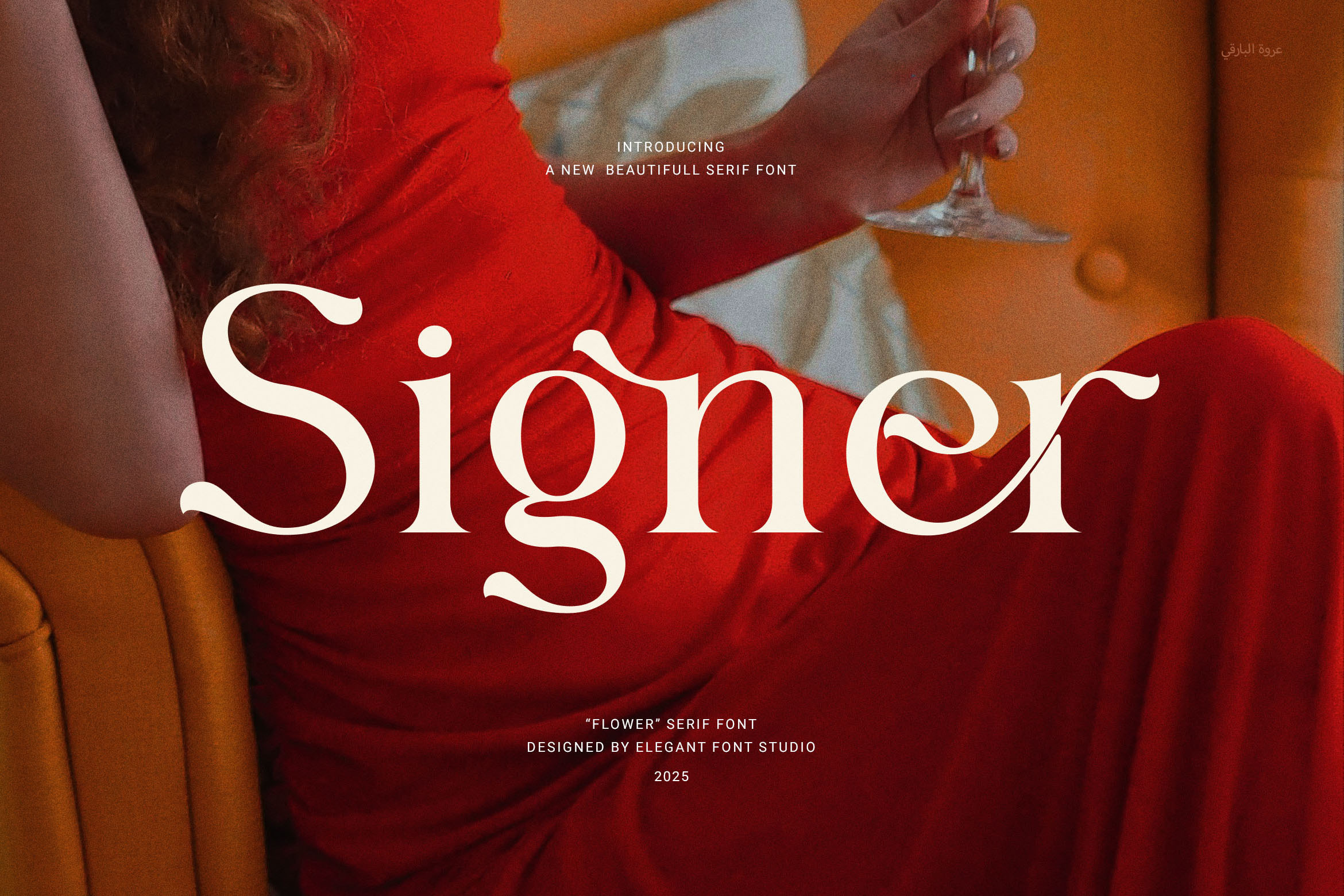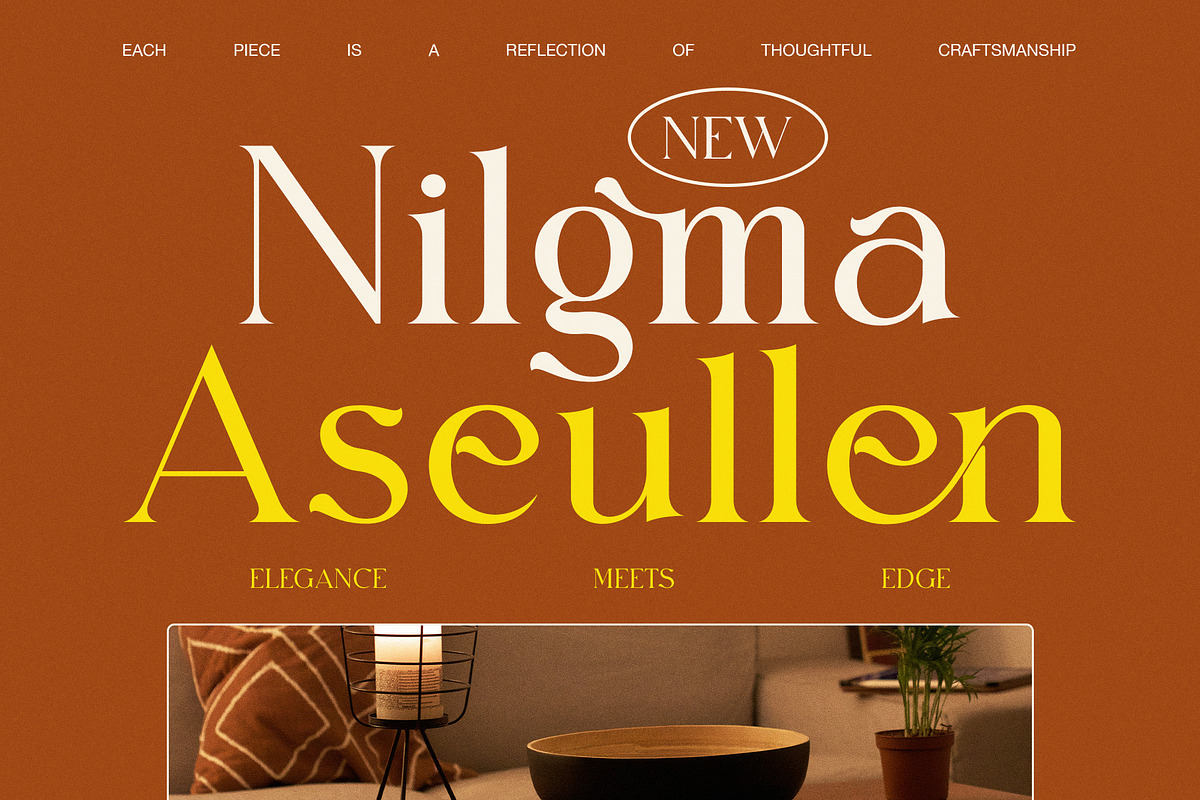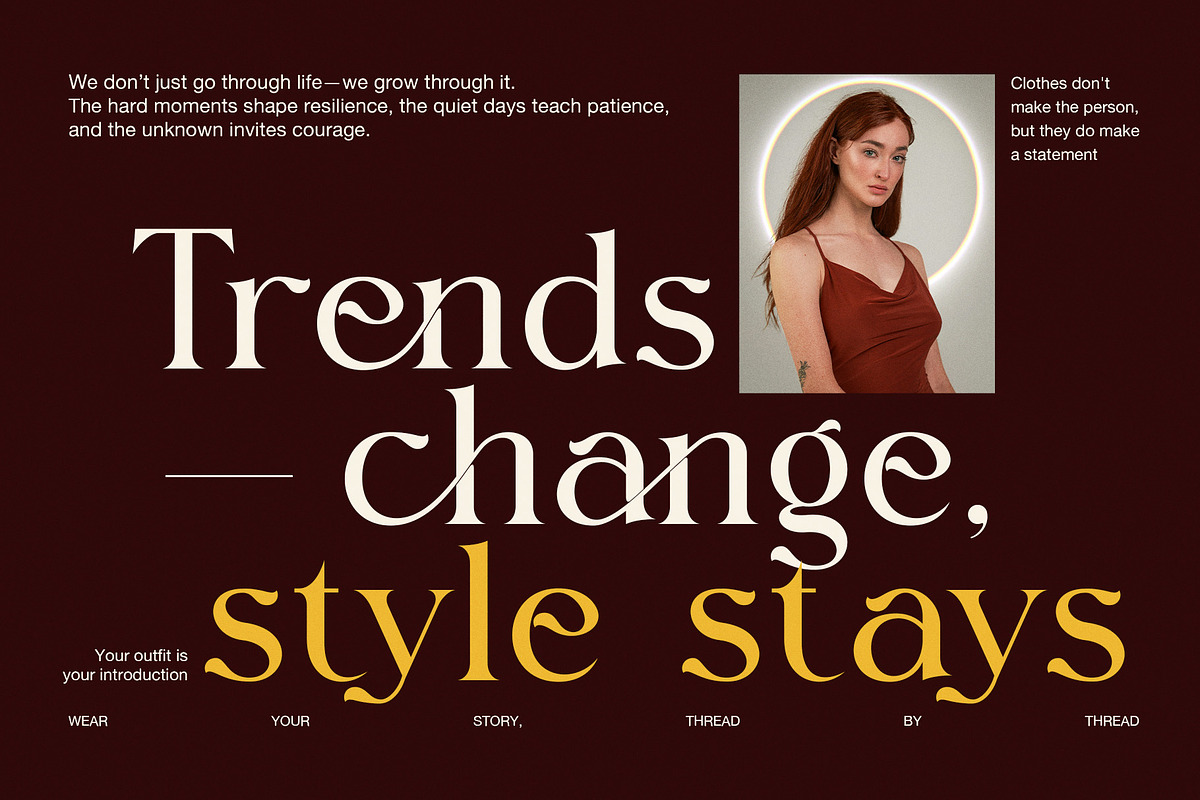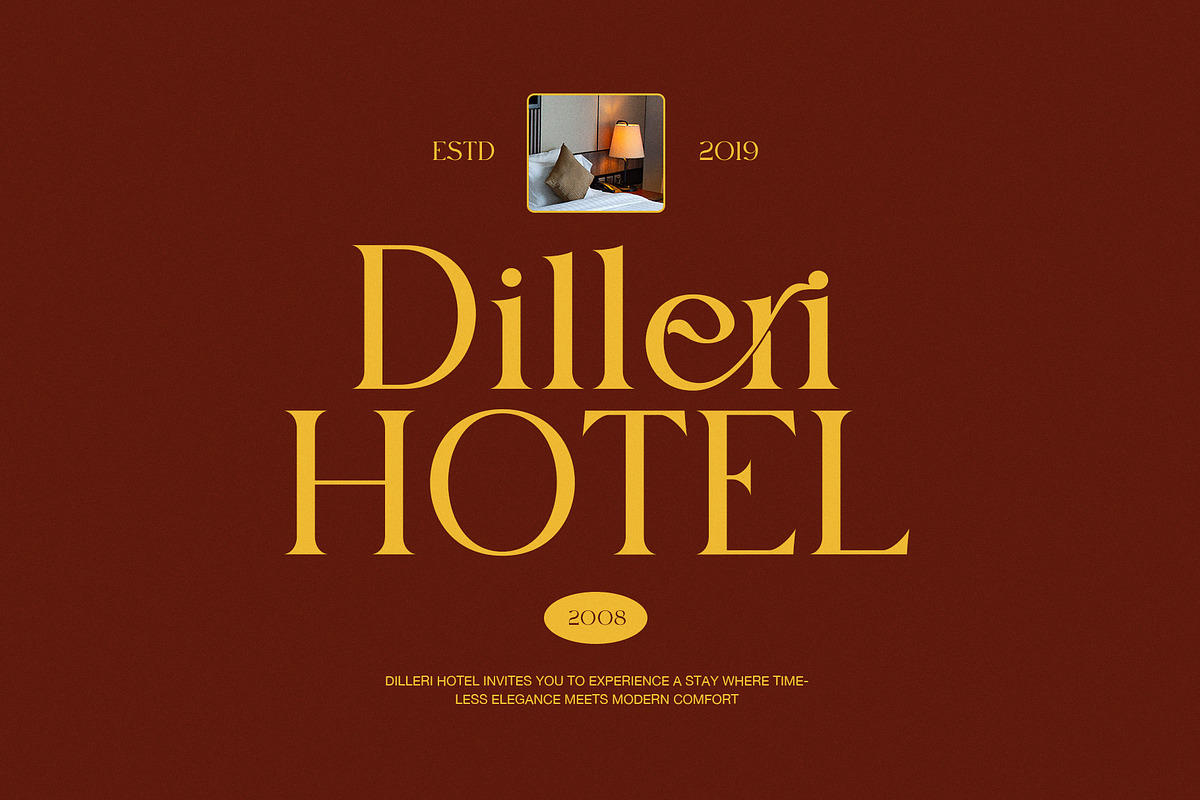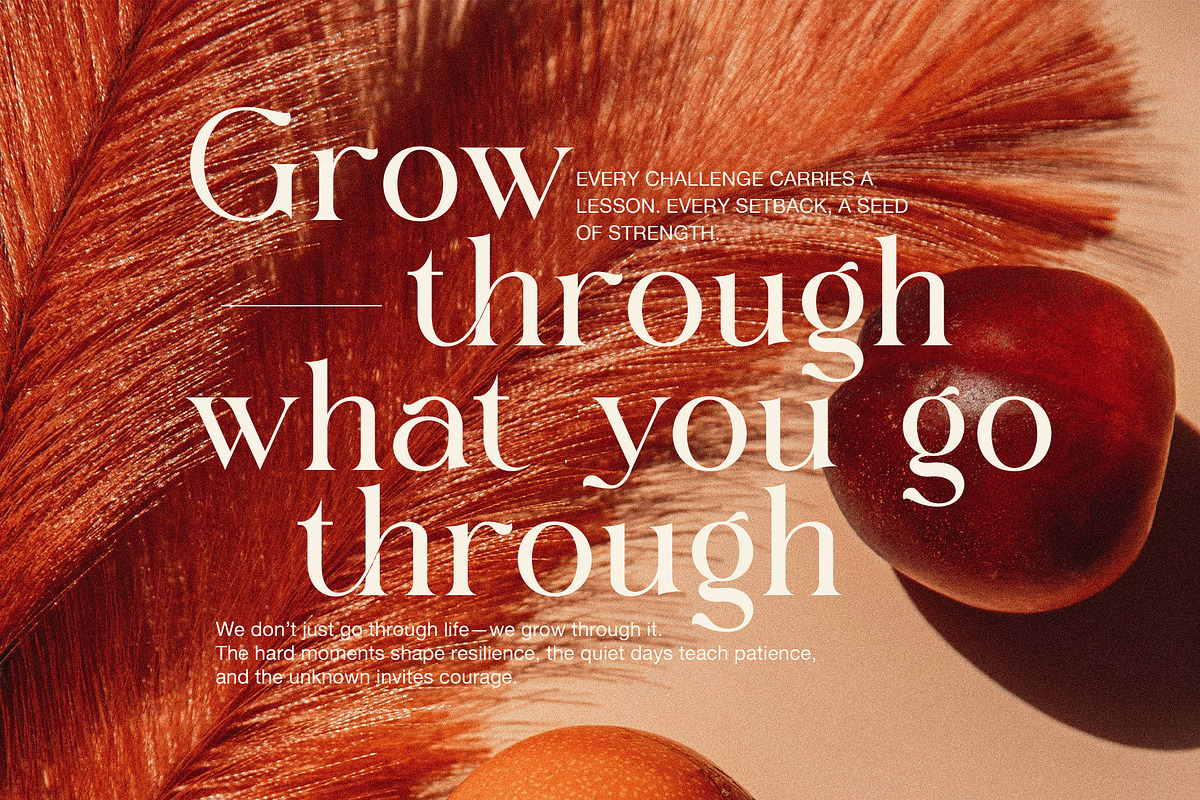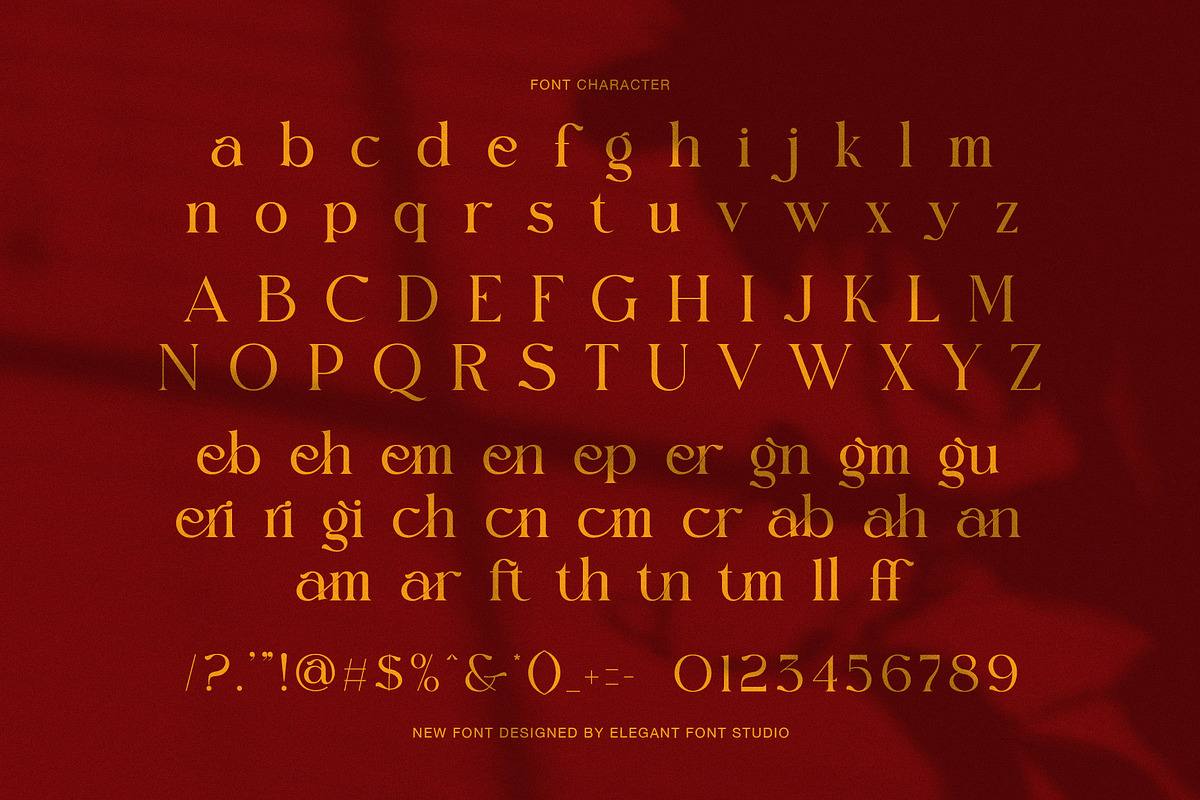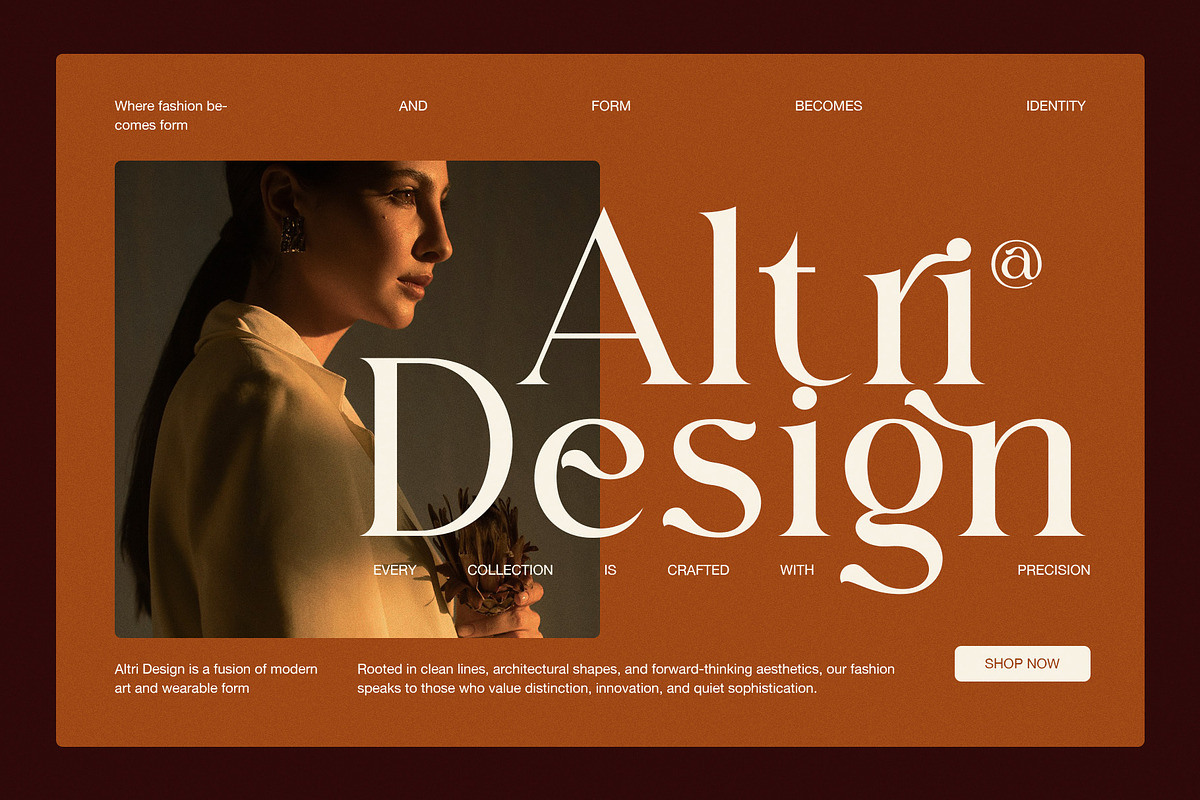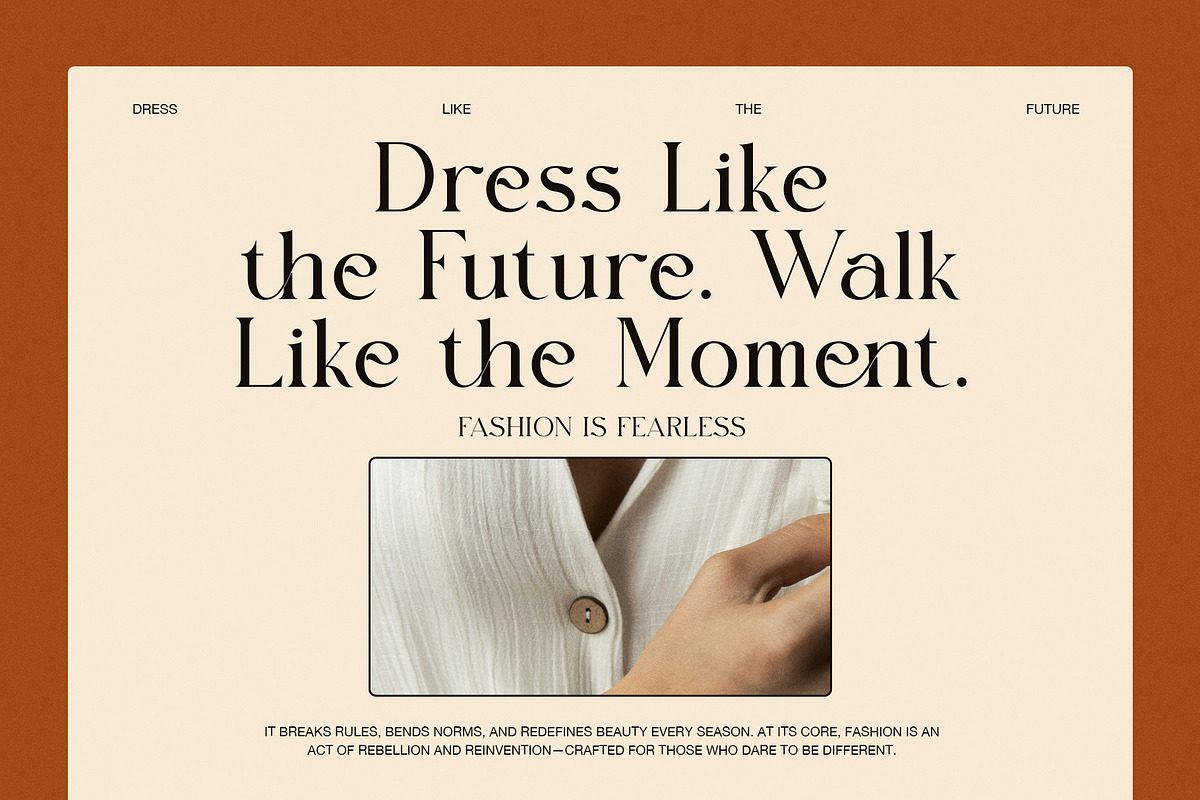
Signer Elegant Serif Font
Signer Elegant Serif Font – Modern, Luxurious, and Built for Timeless Branding
Signer is a modern and elegant serif font that blends classic aesthetics with contemporary design principles. It features balanced proportions, graceful curves, and clean ligatures—making it a standout choice for designers looking to create stylish and high-end visual identities.
Crafted for versatility, Signer adapts effortlessly to both digital and print needs. Whether you're creating logos, developing a website, designing magazine layouts, or packaging premium products, this font brings elegance and clarity to every application.
With its refined letterforms and proportional spacing, Signer ensures excellent readability while enhancing your overall design. The elegant ligatures add sophistication to headlines, body text, and brand visuals without distracting from the message.
Perfect for fashion brands, beauty products, food packaging, editorial designs, and upscale boutiques, Signer adds a professional and luxurious finish to any creative project.
✨ Why Use Signer Elegant Serif Font?
Elegant Serif Style – Adds a clean, classy tone to all visual projects
Functional Ligatures – Creates smooth transitions between characters
Proportional Design – Provides balance, readability, and aesthetic harmony
Perfect for Branding – Ideal for logos, ads, packaging, and websites
Versatile Uses – Works well for food, fashion, magazines, and product design
With Signer, you don’t just get a font—you gain a powerful design tool that helps your brand stand out with elegance, style, and purpose.